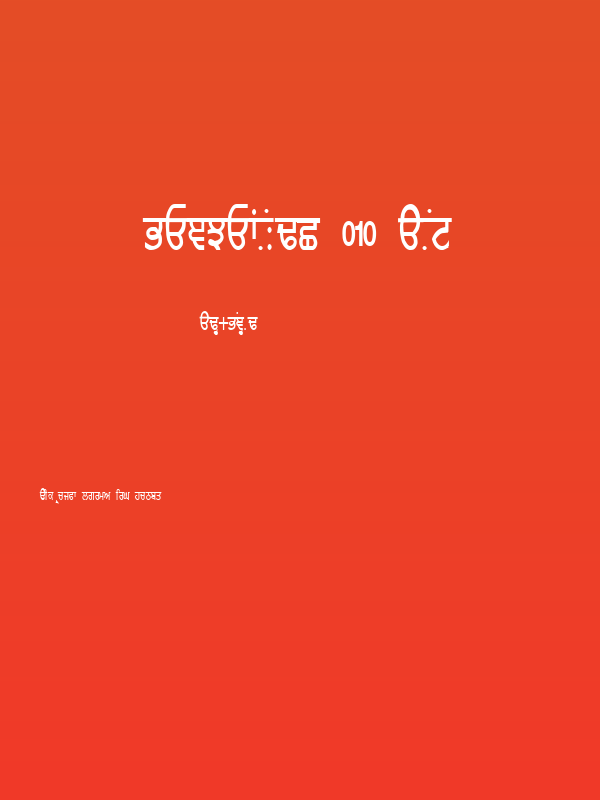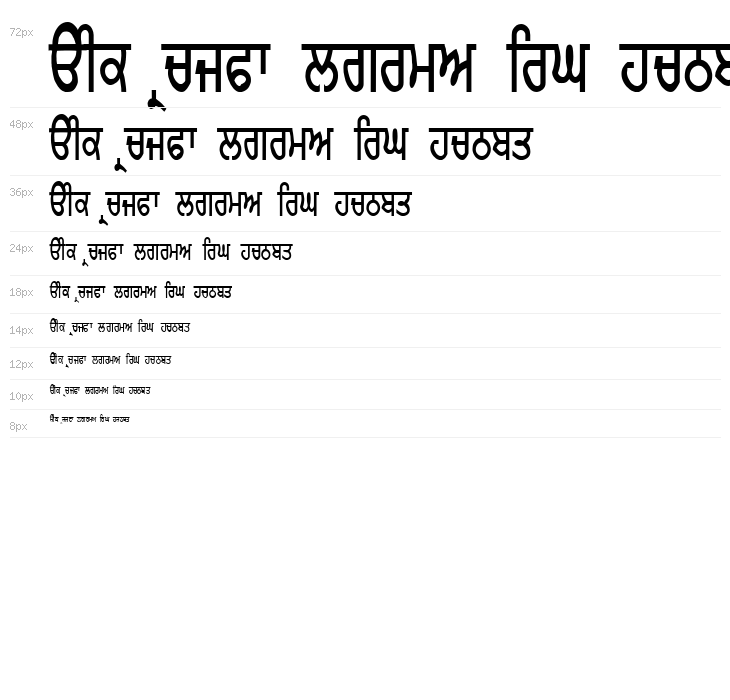
GurmukhiLys 010 Thin Font
GurmukhiLys 010 Thin Description
This font is a thin, elegant typeface featuring the Gurmukhi script. It showcases a clean and modern aesthetic with a focus on readability and clarity. The characters are well-defined with a consistent stroke weight, making it suitable for both digital and print media. The numerals are straightforward and align well with the overall style, while the special characters maintain the same level of clarity and precision. This typeface is ideal for projects that require a sophisticated yet approachable look.
| Use Case | Body text, Educational materials, Digital interfaces |
| Proposed Projects | Ideal for educational materials, cultural publications, and digital interfaces requiring Gurmukhi script. |